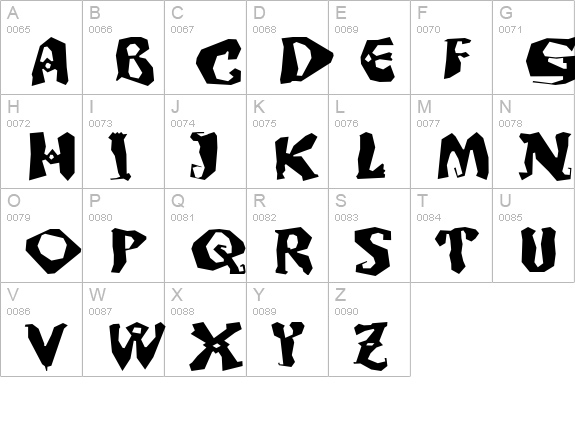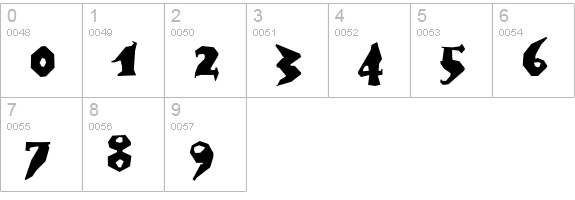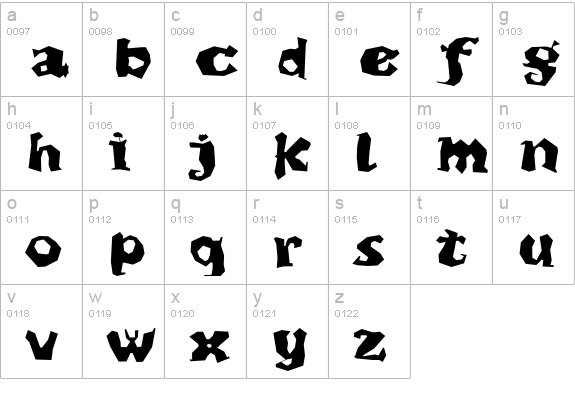
Dikovina Bold is a strong, high-contrast variant in the Dikovina typeface family \xE2\x80\x94 well suited to headlines, attention-grabbing titles, and strong calls-to-action.
Dikovina Bold font is a striking and modern typeface that exudes confidence and strength. With its bold lines and sharp edges, this font is perfect for making a bold statement in any design project. Whether you are creating a logo, poster, or website, Dikovina Bold will command attention and leave a lasting impression. What's even better is that Dikovina Bold font is completely free to download at FontsMarket.com. Yes, you read that right - you can get your hands on this dynamic font at no cost at all! So why wait? Add Dikovina Bold to your font collection today and watch your designs come to life with its bold and impactful presence.